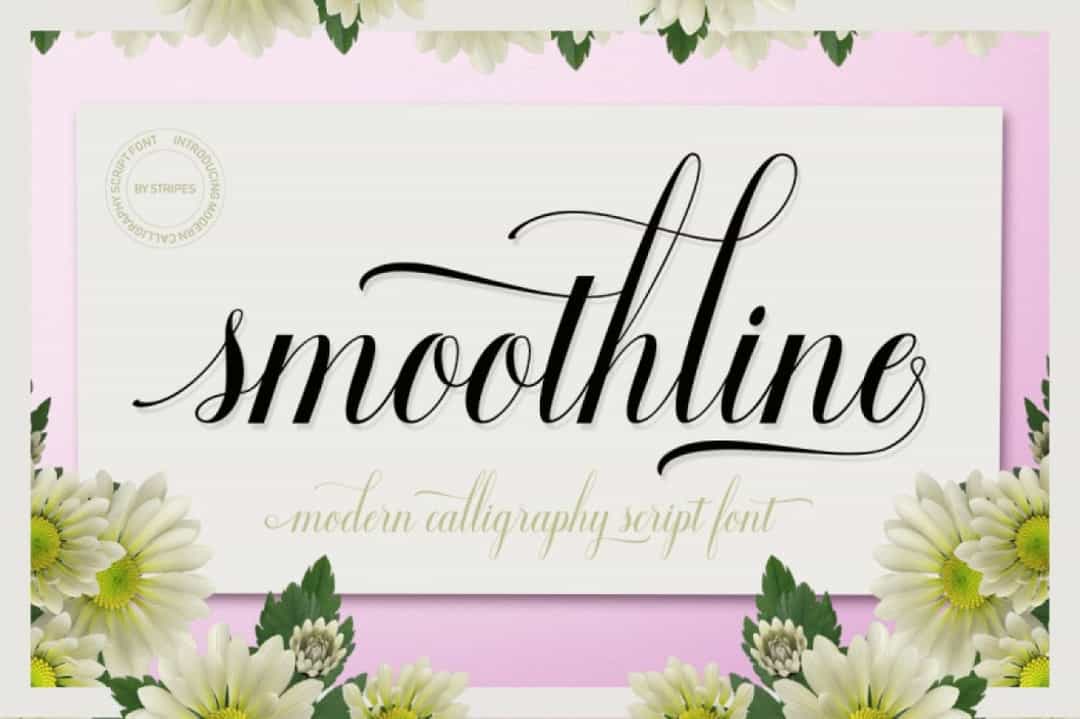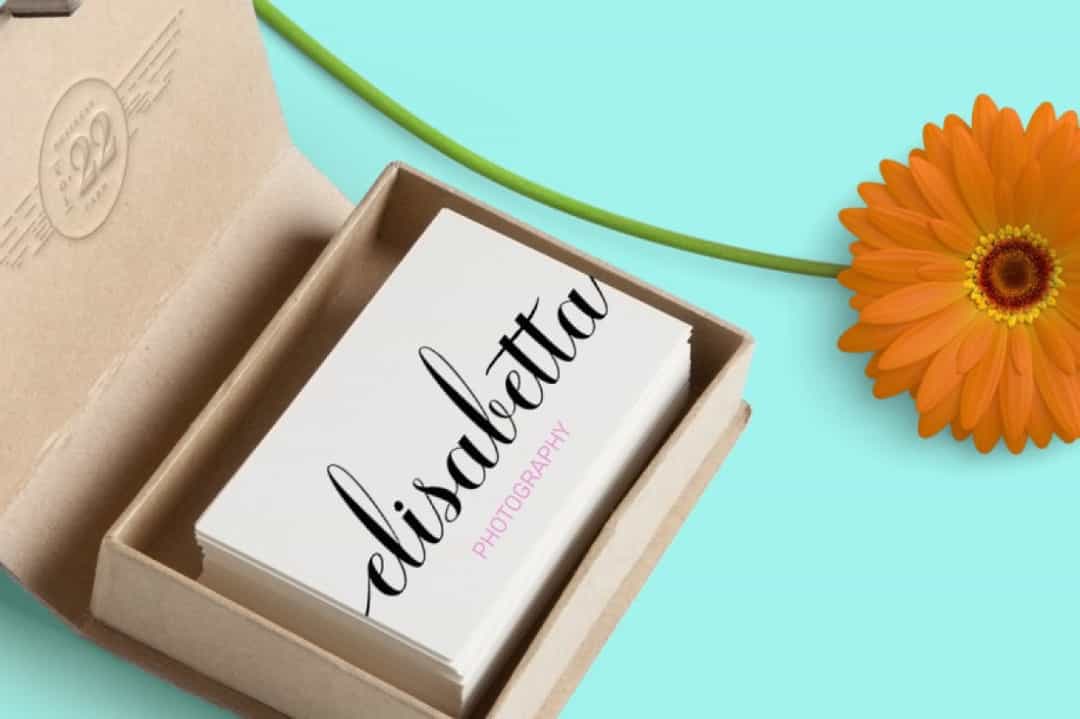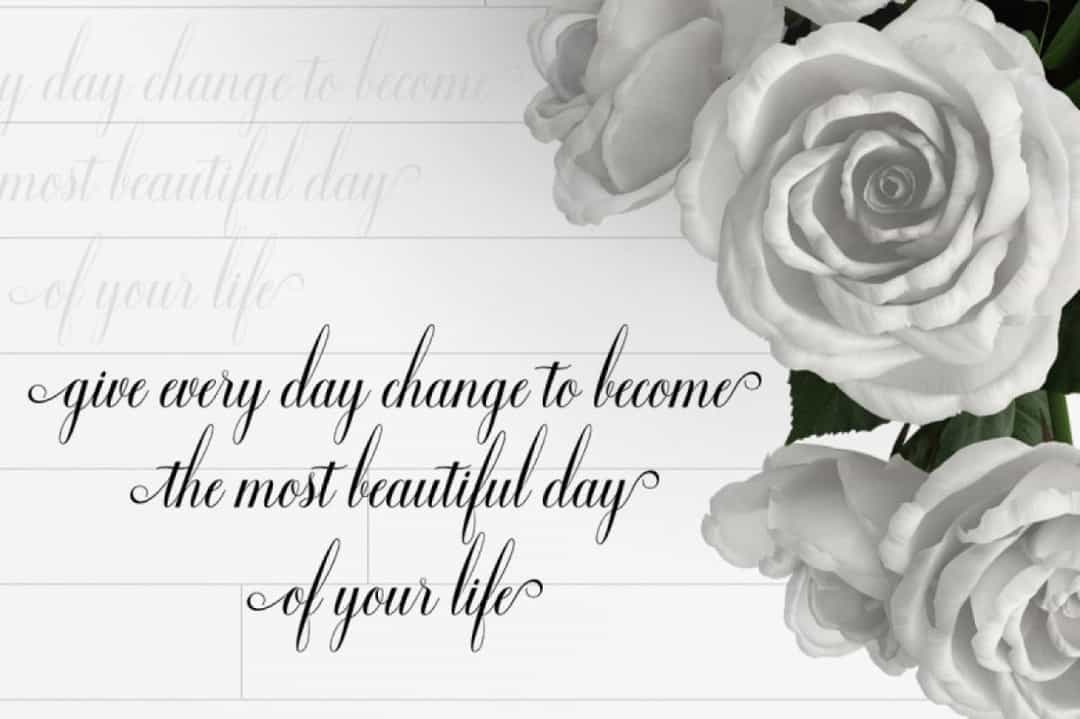
Discover Smoothline Font, part of the Calligraphy collection—a versatile and unique font perfect for adding a personal touch to your projects. Download it for free and enjoy crafting designs with style, from invitations to social media posts. This font is available exclusively for personal use, giving you the freedom to create without limits. Unlock your creativity with Smoothline Font today!
Smoothline Calligraphy Font features contemporary hand scratches to captivate you and I hope that it piques your interest, should you wish to incorporate it in your work quickly and easily due to its many features like alphabet lowercase letters with numbers, punctuation and assorted punctuation, multilingual support as well as easy usage.